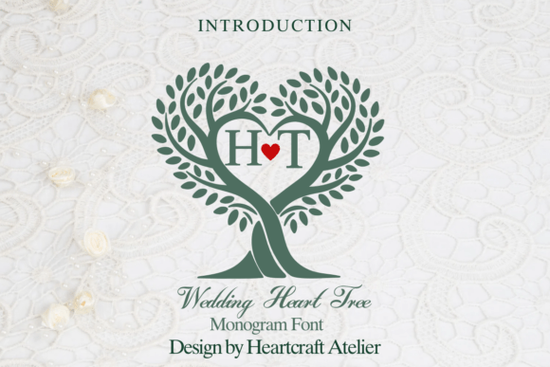
Finding the right decorative font for wedding and heartfelt design projects can make all the difference. The Wedding Heart Tree Font is a decorative typeface that blends romantic charm with an organic, nature-inspired feel. It works beautifully on greeting cards, invitations, social media graphics, and a range of print-on-demand products. If you're a designer, crafter, or small business owner looking for something with personality and warmth, this font deserves a closer look.
What Makes Wedding Heart Tree Font Stand Out?
Not every decorative font strikes the right balance between playful and elegant. This one does it well. The letterforms carry subtle heart and tree-inspired details that give it a handcrafted quality without feeling overly busy. It reads clearly at medium to large sizes, which makes it a strong choice for display text, headers, and feature quotes on printed or digital designs.
Unlike overly ornate scripts that sacrifice readability, this font keeps things clean enough for practical use while still delivering that whimsical, romantic aesthetic many designers and crafters want.
What Can You Use This Font For?
This font is versatile enough to work across a wide variety of creative projects. Here are some popular ways people use it:
- Wedding invitations and save-the-dates
- Greeting cards for anniversaries, Valentine's Day, or love-themed occasions
- Digital planners and diary pages
- Social media posts with a romantic or heartfelt theme
- Print-on-demand products like mugs, t-shirts, tote bags, and stationery
- Wall art prints and quote-based home décor designs
- Blog graphics and banner designs
- Scrapbooking and paper craft projects
Whether you're building a product line for an Etsy shop or designing personal stationery, the Wedding Heart Tree decorative font adapts to different creative contexts without losing its character.
Is This Font a Good Fit for Print-on-Demand Sellers?
Absolutely. Print-on-demand sellers need fonts that look distinctive on physical products without causing printing issues. This font handles that well. Its decorative elements are bold enough to stand out on mugs, shirts, and cards, yet structured enough to reproduce cleanly across different print methods like DTG, sublimation, and screen printing.
If you're building a wedding-themed product collection, pairing this font with other romantic typefaces can help you create a cohesive range. For example, the Wedding Luxury decorative font offers a more refined, sophisticated feel that complements the organic charm of the Heart Tree style. Together, they give you variety without straying from your theme.
How Does It Compare to Other Decorative Fonts?
There are thousands of decorative fonts available, so it's fair to ask what sets this one apart. Here are a few things worth noting:
- Unique character design The heart and tree motifs woven into the letterforms give it a look you won't easily find elsewhere.
- Readable at display sizes Some decorative fonts sacrifice clarity for style. This one maintains both.
- Thematic consistency If your project centers on love, nature, or weddings, this font reinforces that message visually.
- Works across formats Digital and print projects both benefit from its clean rendering.
That said, like any decorative font, it's not ideal for body text or small-size paragraphs. Use it for headings, titles, short quotes, and focal design elements where its personality can shine.
Who Will Benefit Most from This Font?
This font is a solid pick for a range of creatives:
- Wedding stationery designers who want a romantic, nature-inspired option
- Greeting card makers looking for something beyond standard script fonts
- Print-on-demand entrepreneurs building love-themed or seasonal product lines
- Social media managers creating Valentine's Day or anniversary campaign graphics
- Scrapbookers and craft hobbyists adding a personal touch to handmade projects
- Small business owners designing branded materials with a heartfelt tone